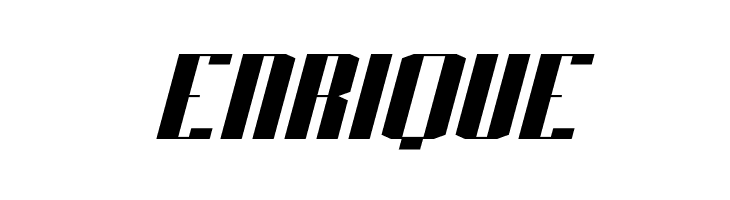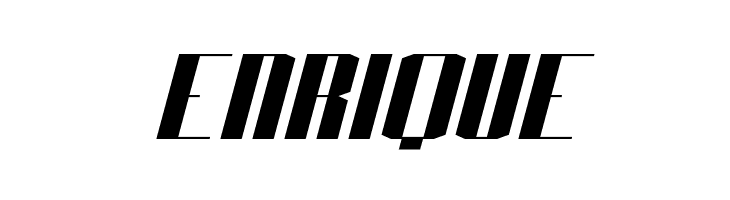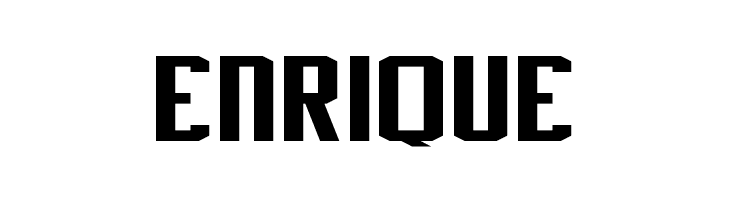
A bold, geometric slab serif font with a modern industrial feel.
A bold, italicized font with a modern, geometric design.
A bold, geometric font with a strong, angular design.
A bold, modern font with a slab-sans style and italicized small caps.
A bold slab serif font with a strong, geometric design.
A bold, italic slab serif font with angular edges and a modern, dynamic style.
A bold slab serif font with strong geometric shapes and vintage appeal.
A bold, italic slab serif font with small caps and a modern, dynamic style.
A bold, geometric font with a modern and industrial aesthetic.
A bold, italicized font with a futuristic, geometric design.
A bold, geometric font with a modern and industrial aesthetic.
A bold, slanted, and angular font with a modern, energetic style.
A bold, angular serif font with a modern geometric style.
A bold, italicized font with sharp angles and a dynamic style.
A bold serif font with sharp, angular forms and a modern classic appeal.
Bold serif font with small caps and italic style, featuring angular and dynamic characters.
A bold, geometric font with angular lines and a modern, industrial feel.
A bold, italicized font with sharp angles and a modern, dynamic style.
A bold slab serif font with a modern, industrial aesthetic.
A bold, angular font with a modern, geometric style.
A bold slab serif font with strong vertical lines and block-like serifs.
A bold, italic slab serif font with angular strokes and a dynamic presence.
A bold slab serif font with geometric shapes and strong serifs.
Bold slab serif with italic slant and small caps, offering a dynamic and modern look.